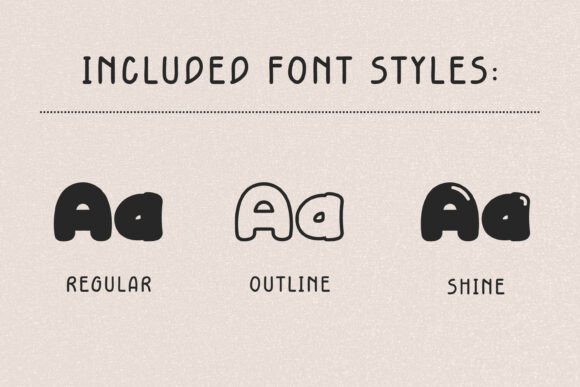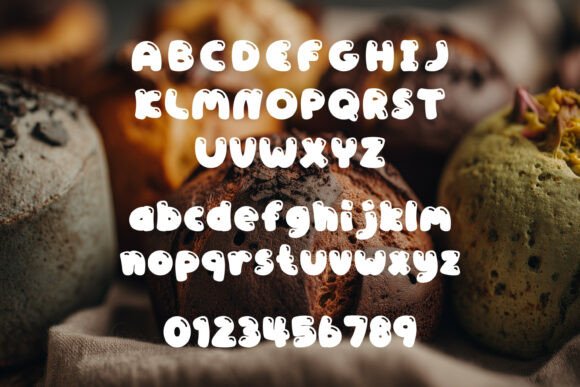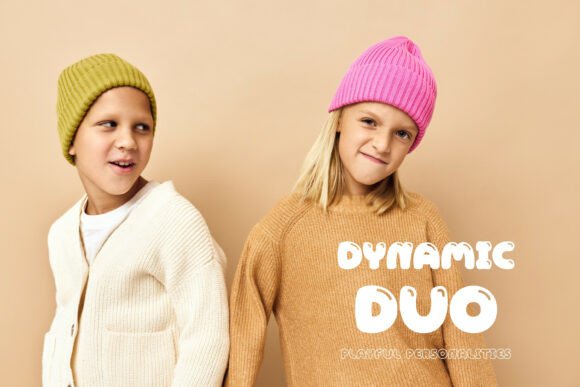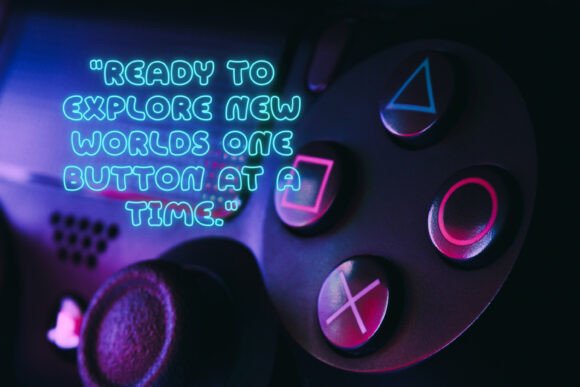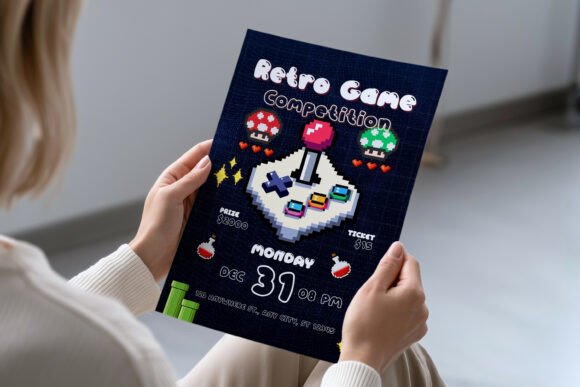
Adding a Sweet Pop to Your Designs: Introducing Candy Soda Font
Who hasn’t, at some point, gazed longingly at a colorful candy display, dreaming of bringing that same magic to their designs? As creatives, we’re always on the lookout for ways to inject a little more whimsy and personality into our work. That’s exactly what the Candy Soda Font does – it’s a playful display bubble font that captures the essence of retro soda-shop vibes and colorful candy, adding a touch of fun and joy to any design.
This delightful typeface is perfect for designers looking to create eye-catching and engaging designs, whether it’s for kids, sweet products, or digital projects. With its bold, cute, and whimsical look, the Candy Soda Font is a valuable asset for anyone seeking to add a little more personality to their work.
- Unique Characteristics: The Candy Soda Font features a unique, playful design with rounded edges and a bold, vibrant aesthetic, making it perfect for use in modern branding, advertising, and packaging.
Candy Soda Font Review
Candy Soda Font is a font that’s sure to catch your eye. Its playful, whimsical design makes it perfect for adding a touch of fun to your next project.
Here’s what works well:
- ✨ Unique and eye-catching design: Candy Soda Font is unlike any other font you’ve seen. Its bold, colorful characters are sure to stand out.
- ✨ Wide range of applications: Whether you’re creating a logo, menu, or social media post, Candy Soda Font is versatile enough to fit the bill.
- ✨ Easy to read: Despite its playful design, Candy Soda Font is surprisingly easy to read, making it a great choice for projects where readability is key.
- ⚠️ Limited font sizes: While Candy Soda Font looks great at larger sizes, it can become blurry and difficult to read at smaller sizes.
- ⚠️ Not ideal for formal projects: While Candy Soda Font is perfect for playful projects, it may not be the best choice for more formal projects, such as resumes or business reports.
Overall, Candy Soda Font is a fun and versatile font that’s perfect for projects where you want to add a touch of whimsy. Just be sure to use it in the right context, and you’ll be golden.
The Candy Soda Font is perfect for creating playful and eye-catching designs, such as:
- Social media graphics and ads
Remember to experiment with different font sizes, colors, and combinations to get the most out of the Candy Soda Font!